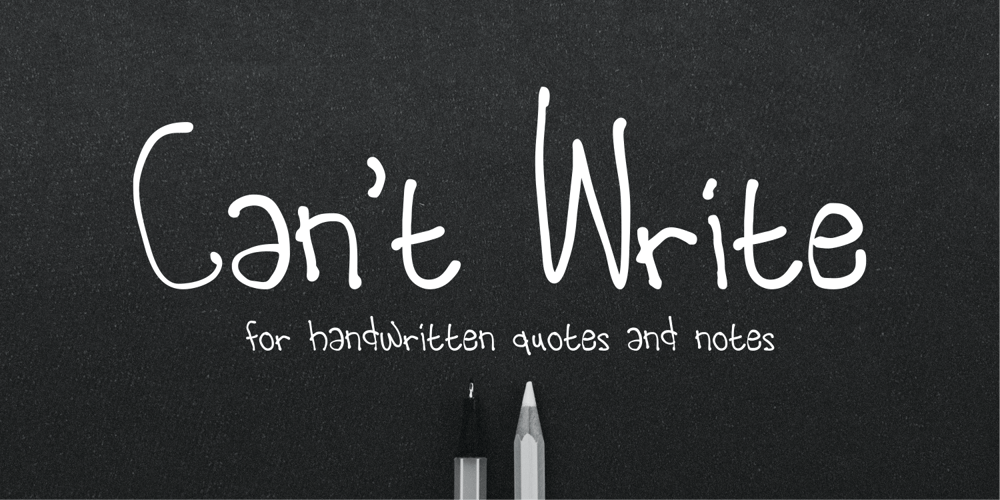
Cannot Write Font Family was designed by ANGGI HERMAWAN and published by Forberas Club. Cannot Write contains 1 styles and family package options. Introducing Can’t Write. This new Handwritten font is written by our team, and ready to pop up your project by using this font for your party, event, invitation or at your wedding decor.